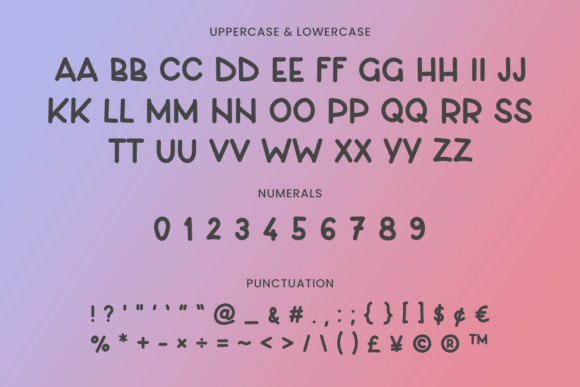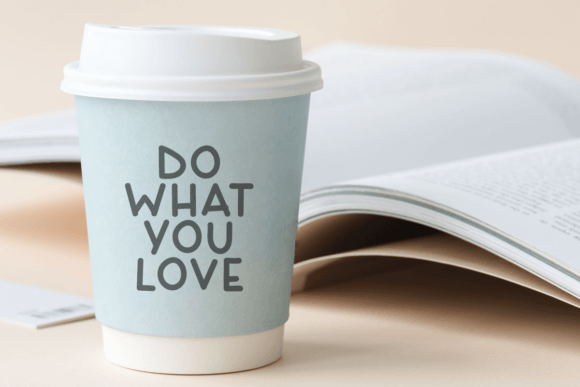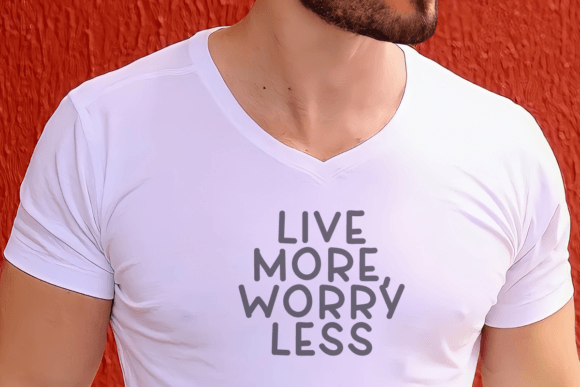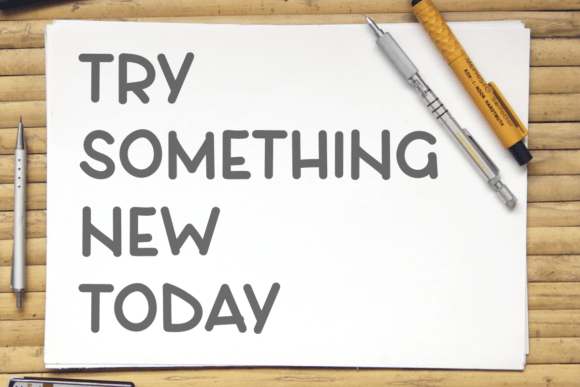
Introducing Dreamy Lemon: The Ultimate Display Font for Creative Expression
Are you tired of using the same old fonts for your designs? Look no further than Dreamy Lemon, a fresh and eye-catching display font that’s sure to captivate and leave a lasting impression. With its unique forms, bold presence, and artistic flair, this typeface brings creativity and energy to any design, making it perfect for designers and crafters looking to make a statement.
The Power of Bold Typography
Dreamy Lemon is more than just a font – it’s a design statement. Crafted to command attention, this playful display font is ideal for posters, branding, headlines, or creative projects where you want to stand out from the crowd. Whether you’re a seasoned designer or a crafty DIY enthusiast, Dreamy Lemon gives you the tools to unleash your creativity and add a touch of personality to your work.
What Sets Dreamy Lemon Apart
So, what makes Dreamy Lemon so special? Here are just a few features that set it apart from other fonts:
• Unique Forms: Dreamy Lemon boasts unique and creative letterforms that add a touch of whimsy to any design.
• Bold Presence: This font makes a statement with its bold and confident presence, perfect for headlines, titles, and other attention-grabbing applications.
• Artistic Flair: With its artistic and creative vibe, Dreamy Lemon adds a touch of personality to any design, making it perfect for crafters and designers looking to add a unique touch.
With Dreamy Lemon, the design possibilities are endless. Here are just a few ideas to get you started:
• Posters and Flyers: Use Dreamy Lemon to create eye-catching posters and flyers that grab attention and leave a lasting impression.
• Branding and Logo Design: Add a touch of personality to your brand with Dreamy Lemon, perfect for logos, business cards, and other marketing materials.
• Headlines and Titles: Use Dreamy Lemon to create bold and attention-grabbing headlines and titles for your blog posts, articles, and other written content.
• Crafting and DIY Projects: Add a touch of whimsy to your crafting and DIY projects with Dreamy Lemon, perfect for signs, banners, and other handmade creations.
Why Choose Dreamy Lemon?
So, why choose Dreamy Lemon over other fonts? Here are just a few reasons:
• Creativity and Energy: Dreamy Lemon brings a fresh and creative energy to any design, making it perfect for designers and crafters looking to add a unique touch.
• Attention-Grabbing: With its bold presence and unique forms, Dreamy Lemon is sure to grab attention and leave a lasting impression.
• Versatility: Dreamy Lemon is versatile and can be used for a wide range of design applications, from posters and branding to headlines and crafting projects.
Get Ready to Unleash Your Creativity
Are you ready to take your designs to the next level with Dreamy Lemon? With its unique forms, bold presence, and artistic flair, this display font is sure to bring creativity and energy to any project. So, what are you waiting for? Unleash the power of bold typography with Dreamy Lemon today and start creating designs that stand out with style and personality!
In conclusion, Dreamy Lemon is a fresh and eye-catching display font that’s perfect for designers and crafters looking to add a touch of creativity and personality to their work. With its unique forms, bold presence, and artistic flair, this typeface is sure to captivate and leave a lasting impression. So, why settle for ordinary fonts when you can make a statement with Dreamy Lemon? Try it out today and see the difference for yourself!